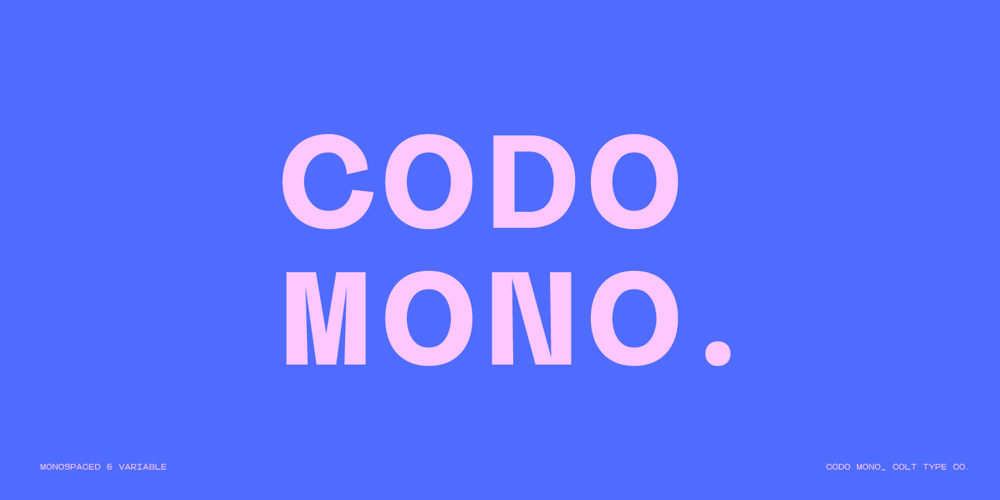
Codo Mono Font Family was designed by Adam Greasley and published by wearecolt. Codo Mono contains 14 styles and family package options. Codo Mono Modern monospace typefaceStandard and italic styles, 6 weights + variable weight versions.Codo Mono is a carefully crafted monospaced typeface featuring stylistic alternatives to help make your design or branding stand out.Codo Mono Family: Codo Mono Thin Codo Mono Extra Light Codo Mono Regular Codo Mono Medium Codo Mono Bold Codo Mono Italic Thin Codo Mono Italic Extra Light Codo Mono Italic Regular Codo Mono Italic Medium Codo Mono Italic Bold Plus: Codo Mono Variable weight Codo Mono Italic Variable weight This font has extensive Latin language support for Western, Central, and South-Eastern European. Designed to have great legibility with a modern feel, Codo Mono is well suited to branding, magazines, editorial copy, packaging, and more.